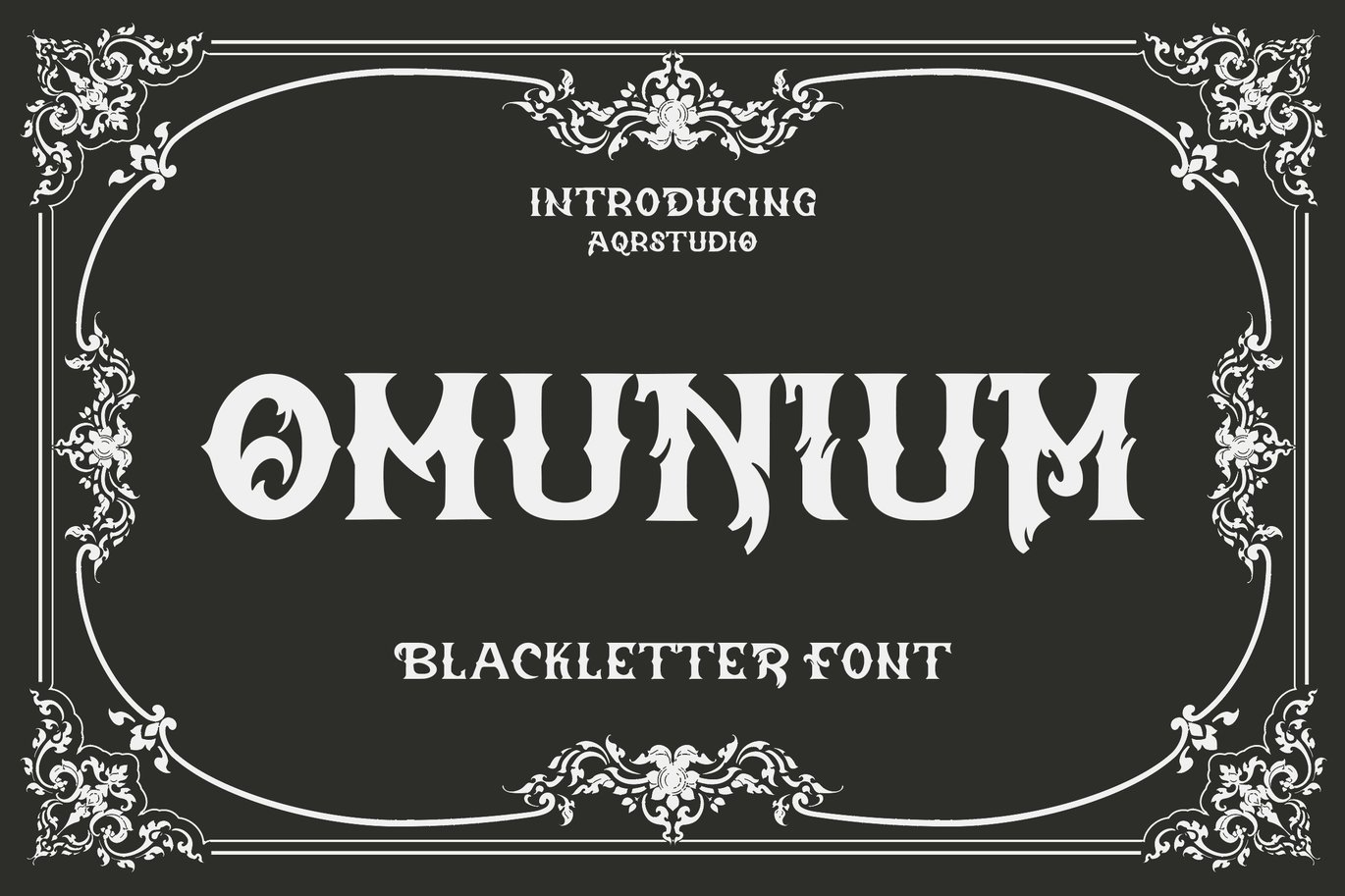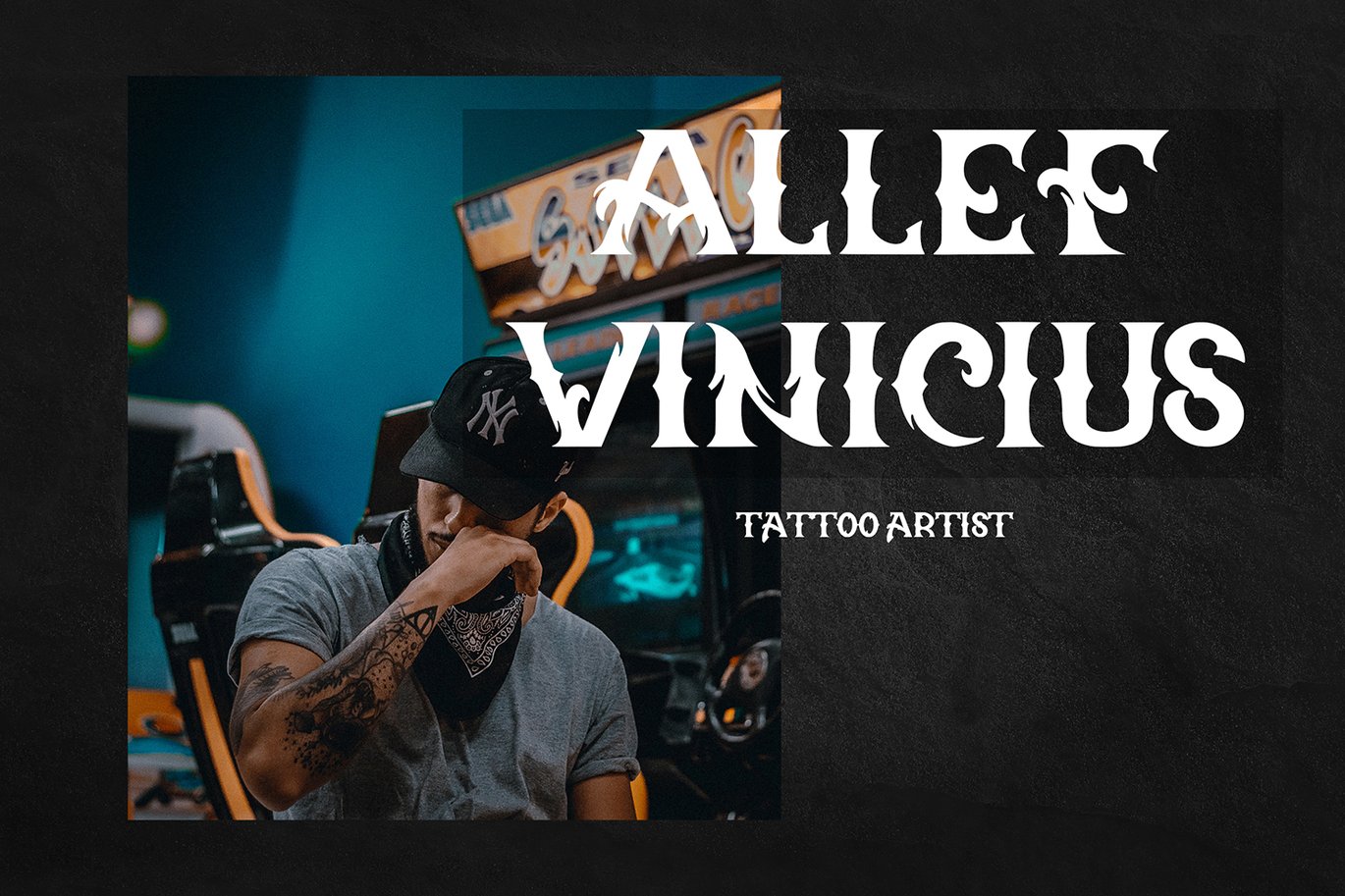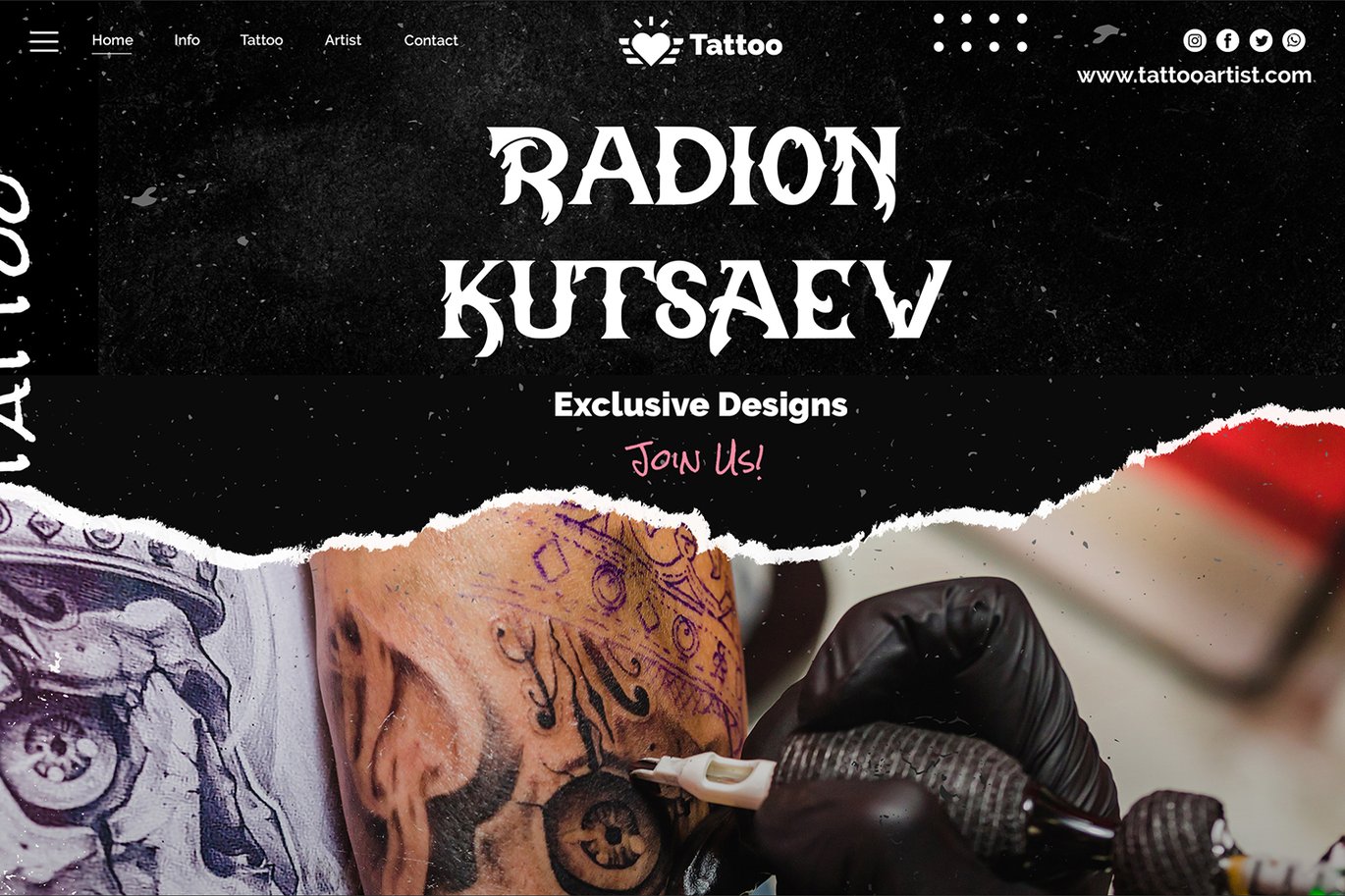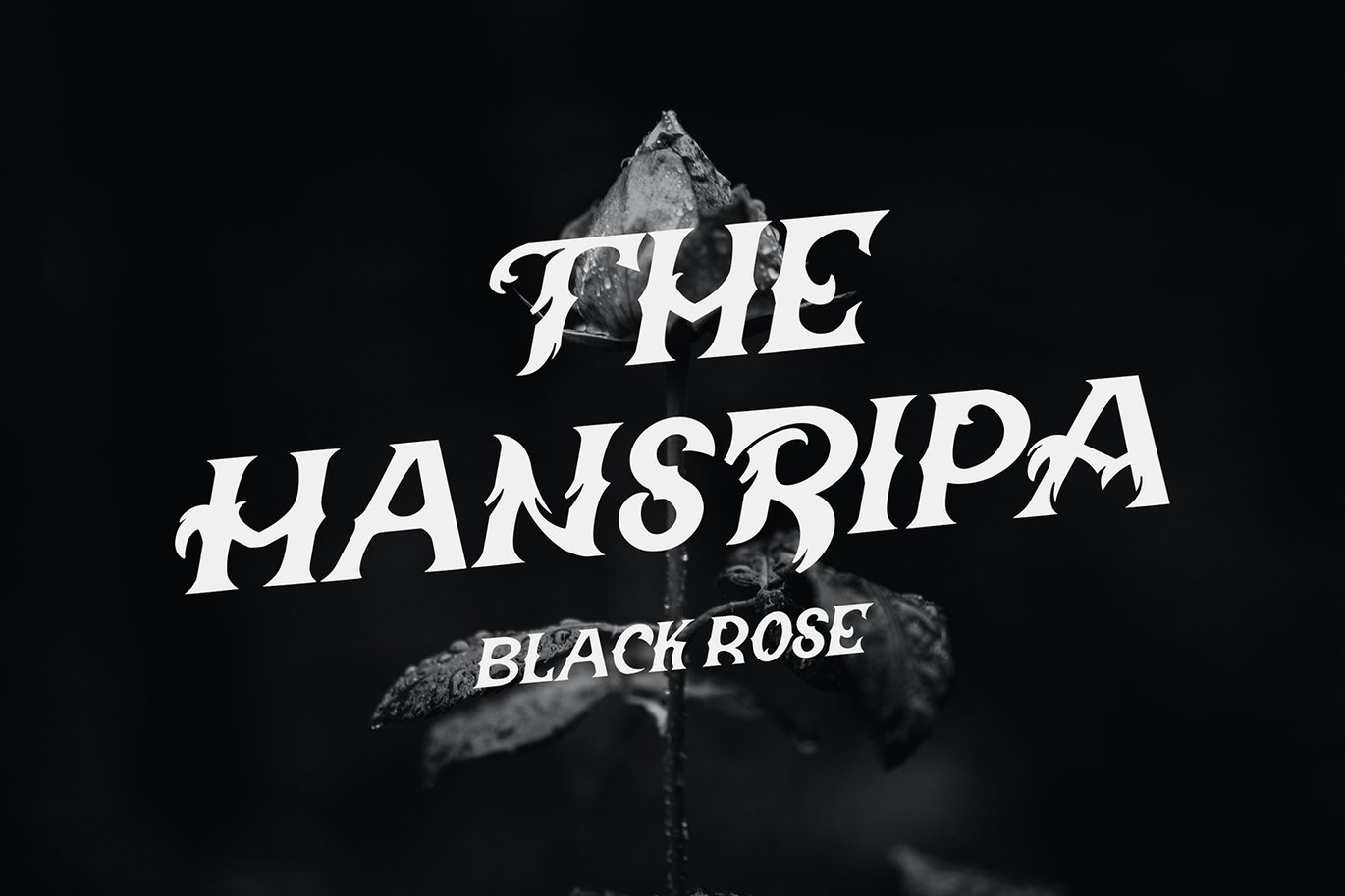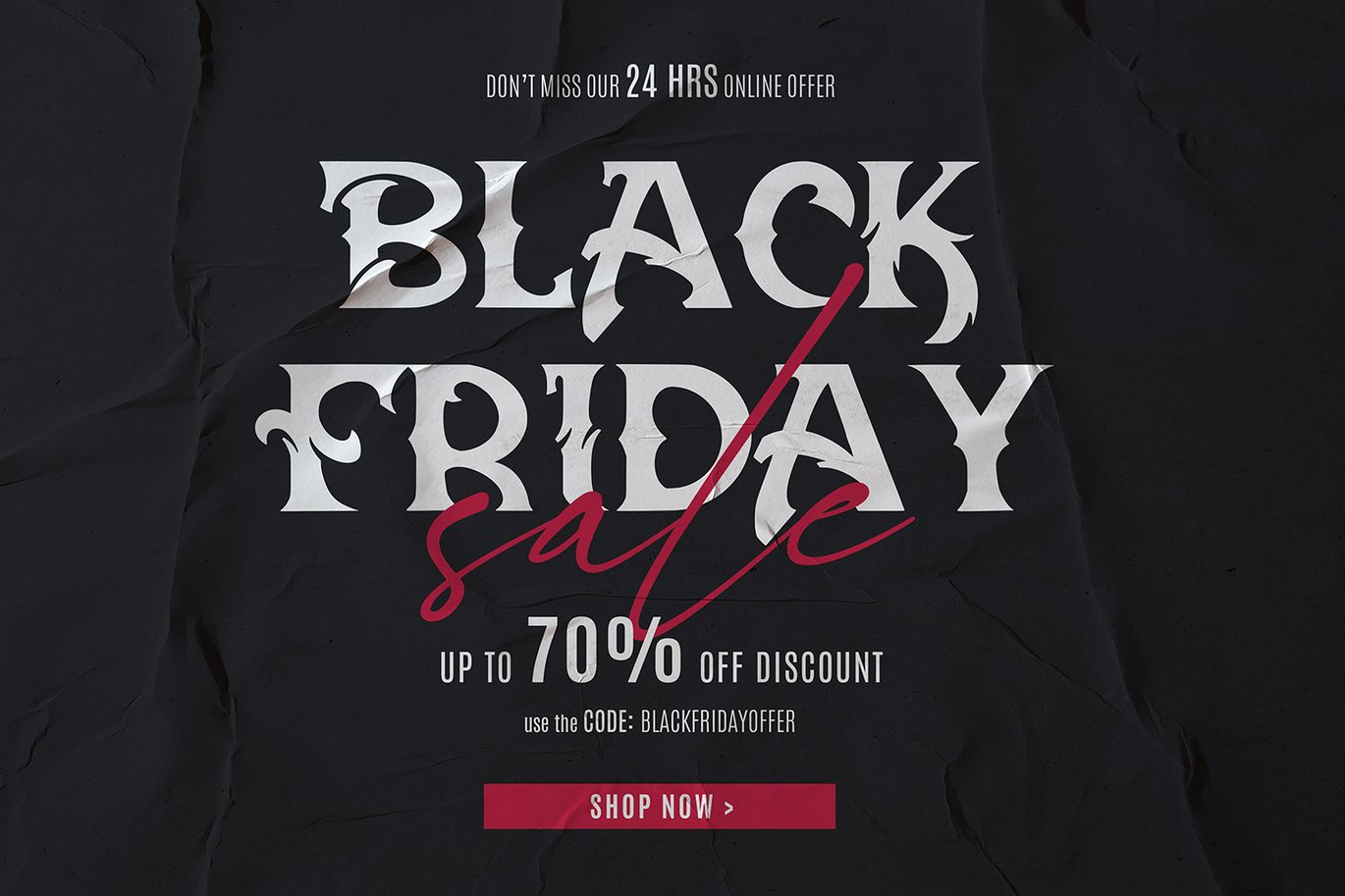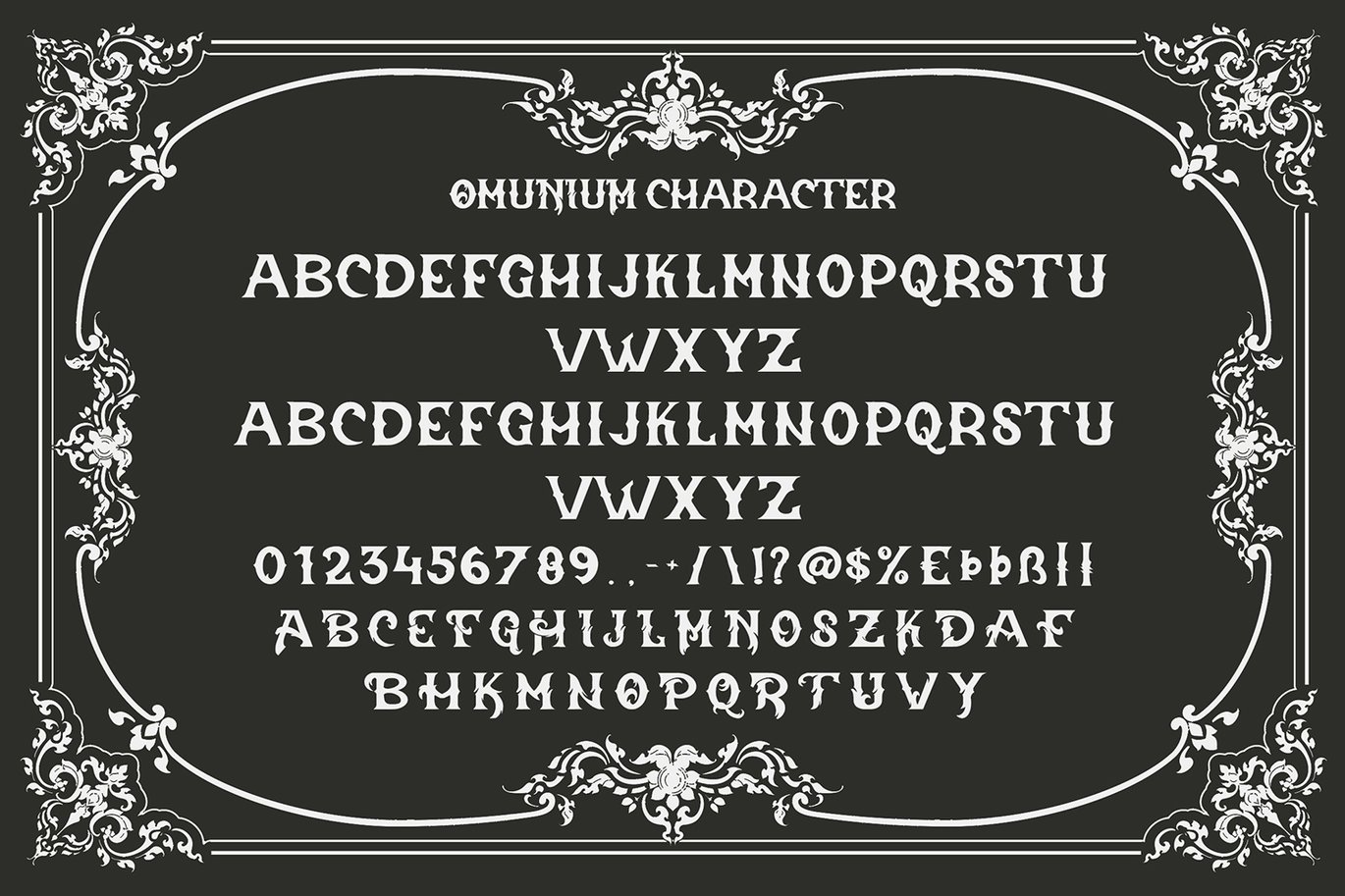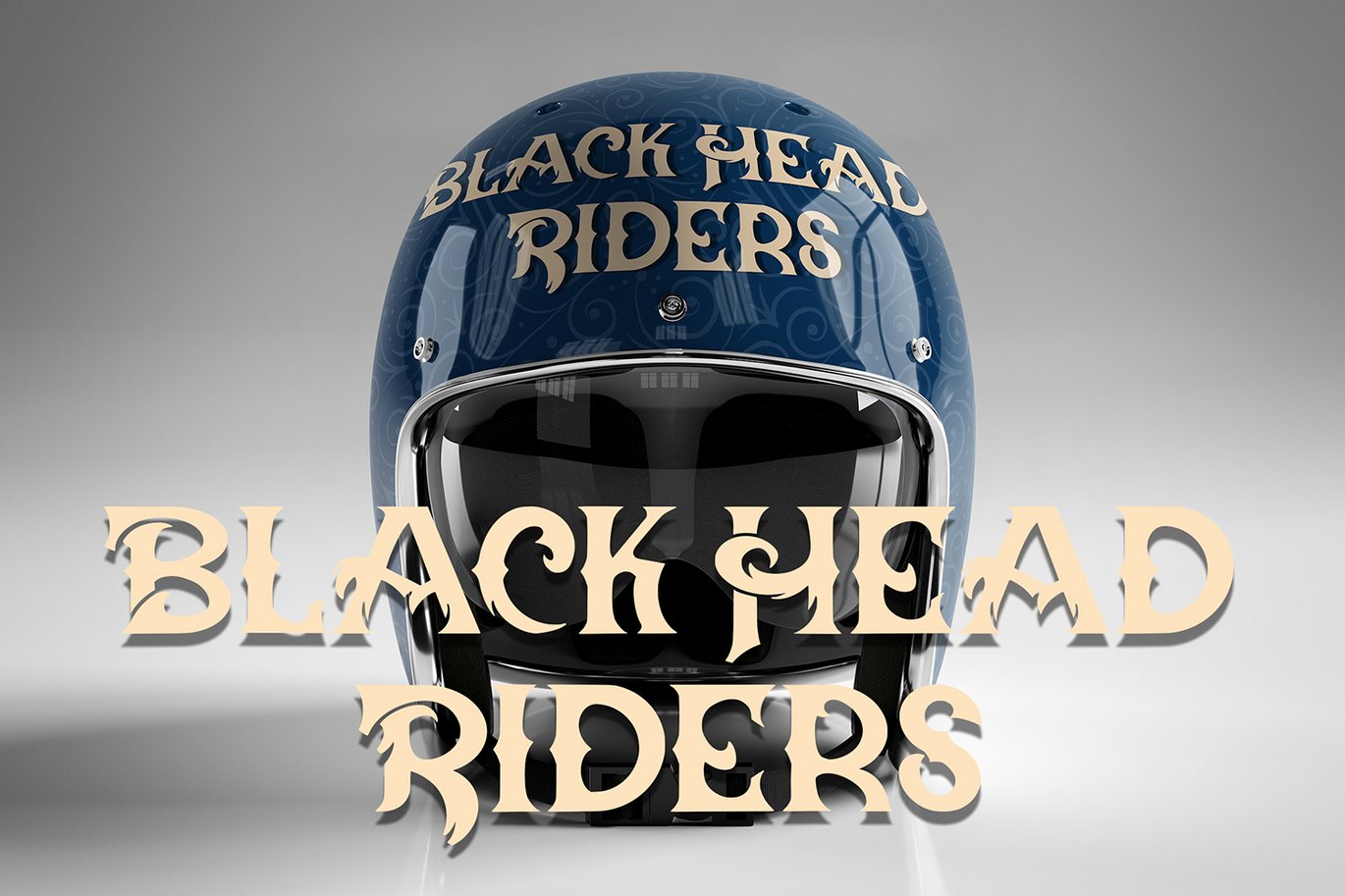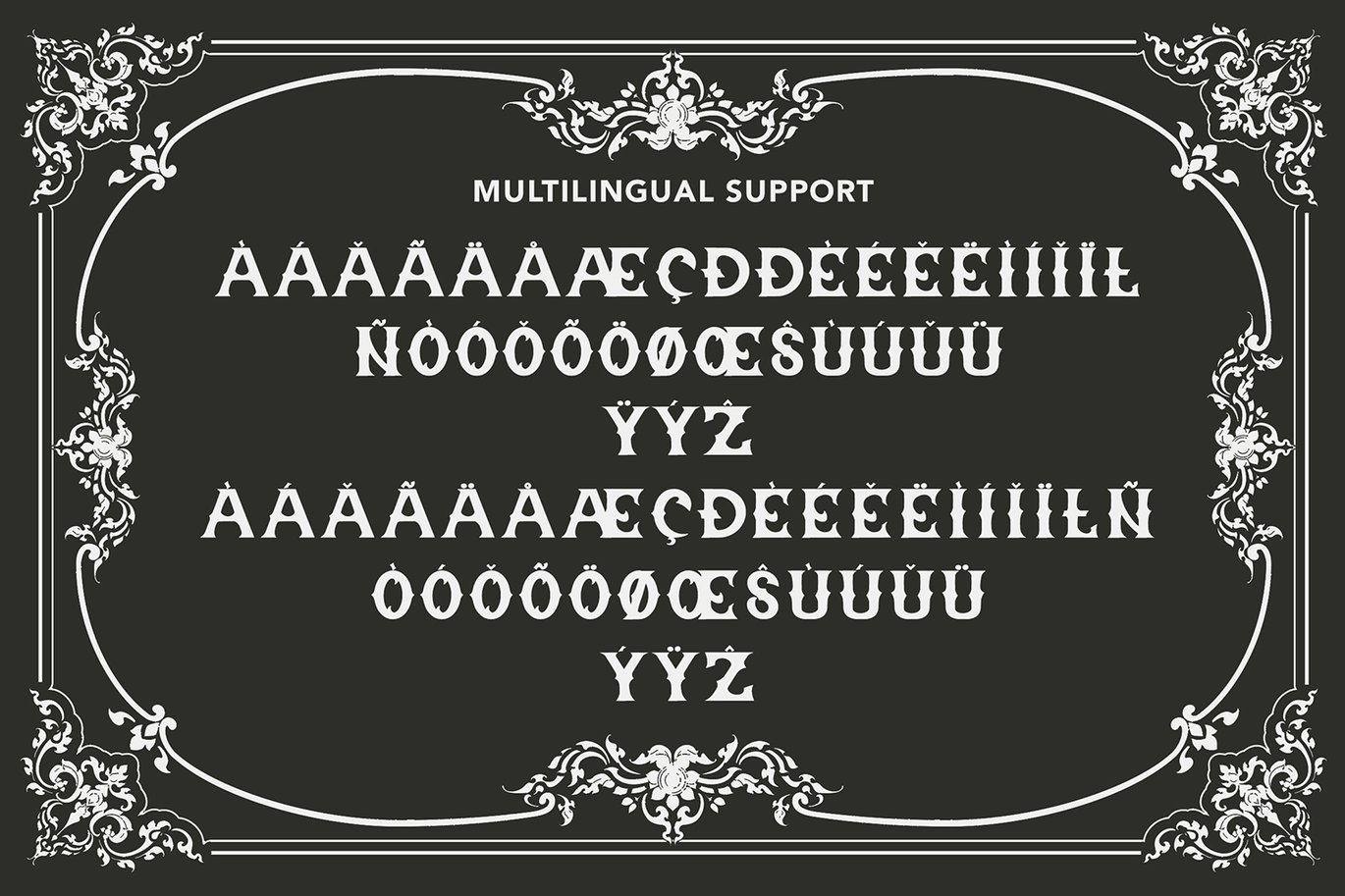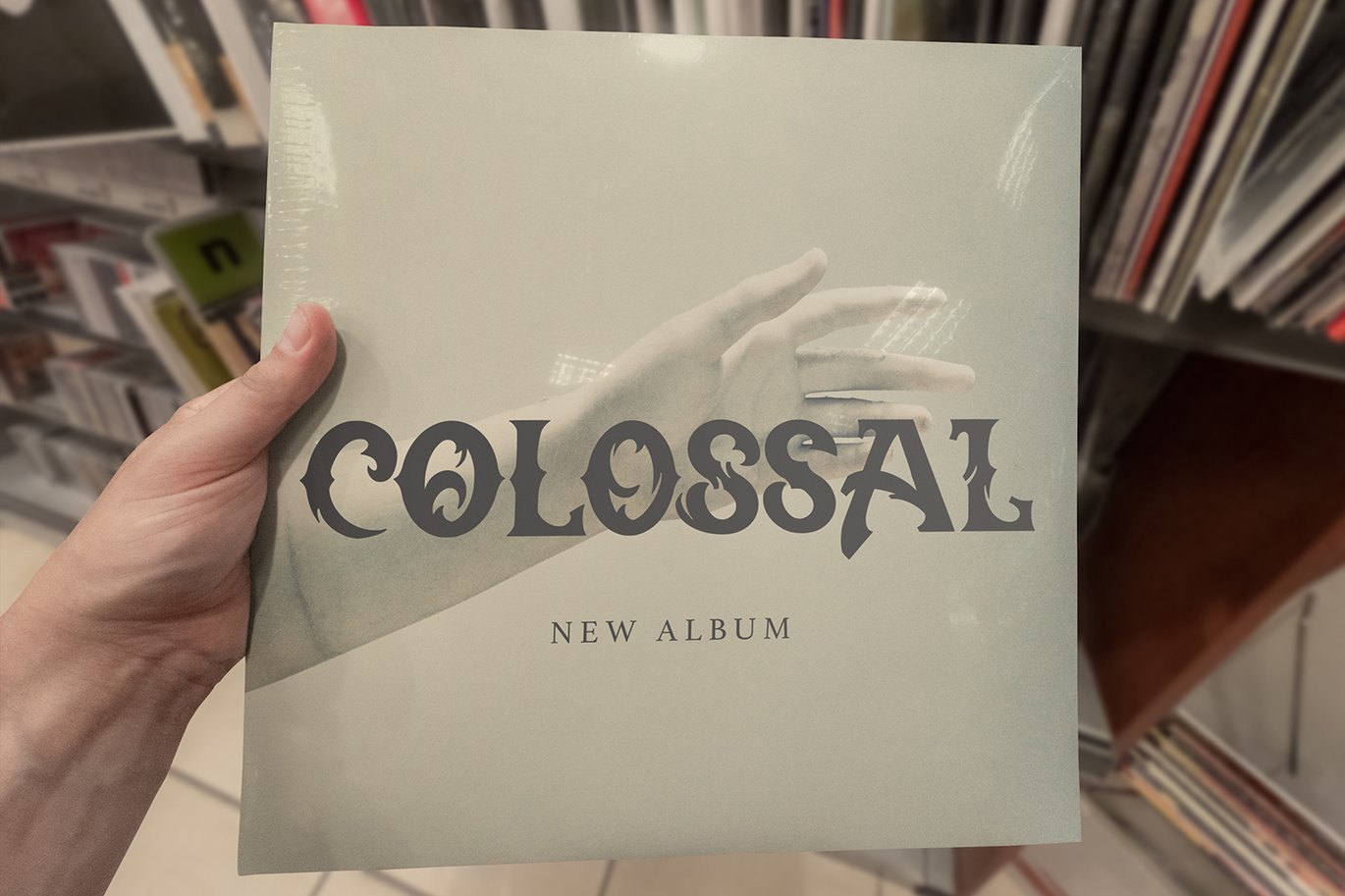
Omunium – Blackletter Font
Omunium – Blackletter Font contains a lowercase, uppercase, symbol, and also supports multi-language. There’s a lot of ligature in this font. Omunium – Blackletter Font also comes with ligatures, stylistic alternates and many more.
this font suitable for fashion, branding, catalog and other design that you want.